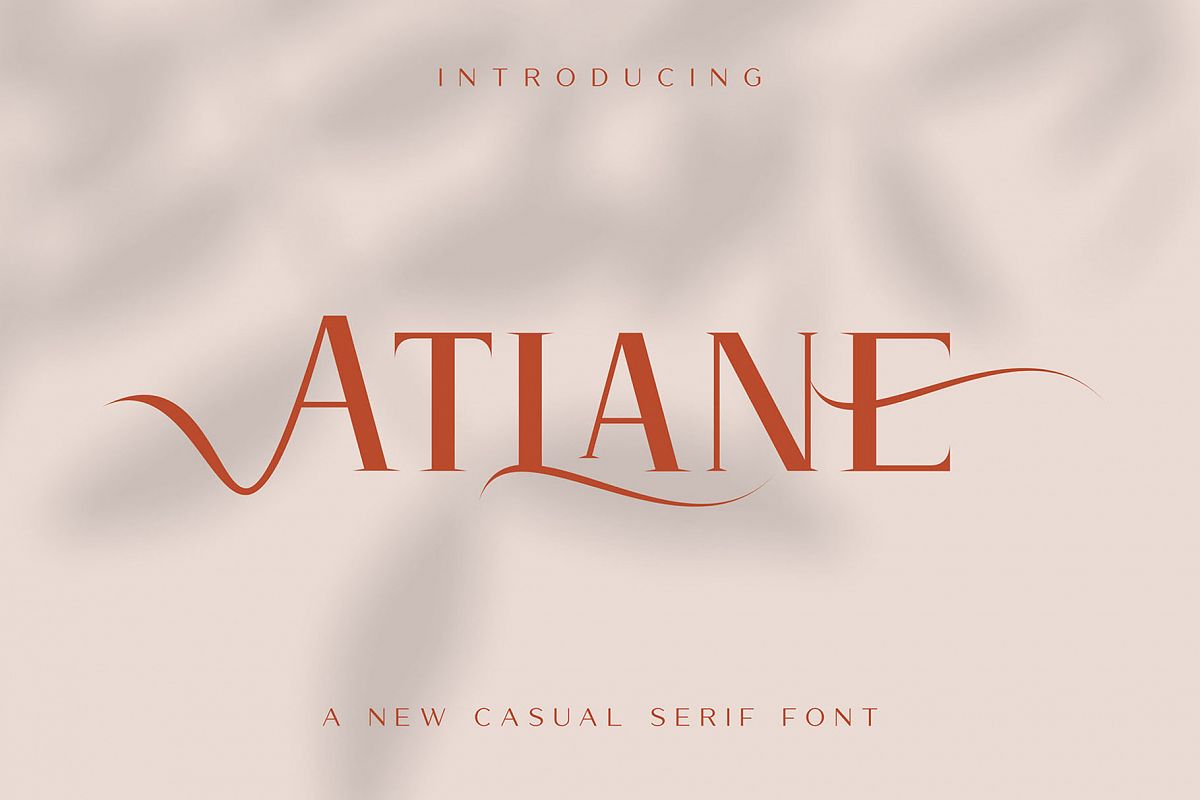
Atlane Casual Serif Font
say hi to Atlane a new casual serif font with a modern concept, beautiful swash and ligature and can easily be applied to your designs such as logos, branding or others. I highly recommend using a program that supports OpenType features and Glyphs panels such as Adobe Illustrator, Adobe Photoshop CC, Adobe InDesign, or CorelDraw, so you can see and access all Glyph variations. This font is encoded with Unicode PUA, which allows full access to all additional characters without having special design software. Mac users can use Font Book, and Windows users can use Character Map to view and copy one of the extra characters to paste into your favorite text editor/application. We hope you enjoy the font, please feel free to comment if you have any thoughts or feedback. Thanks for purchasing and have fun!